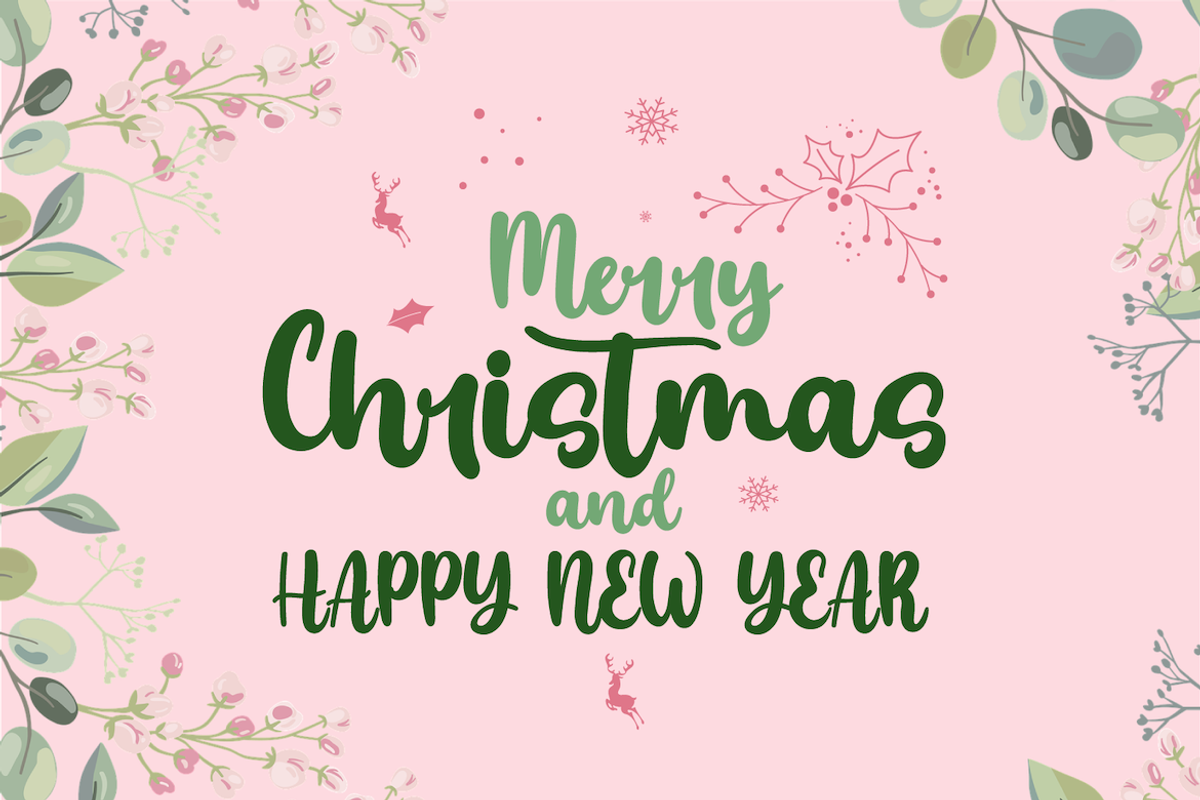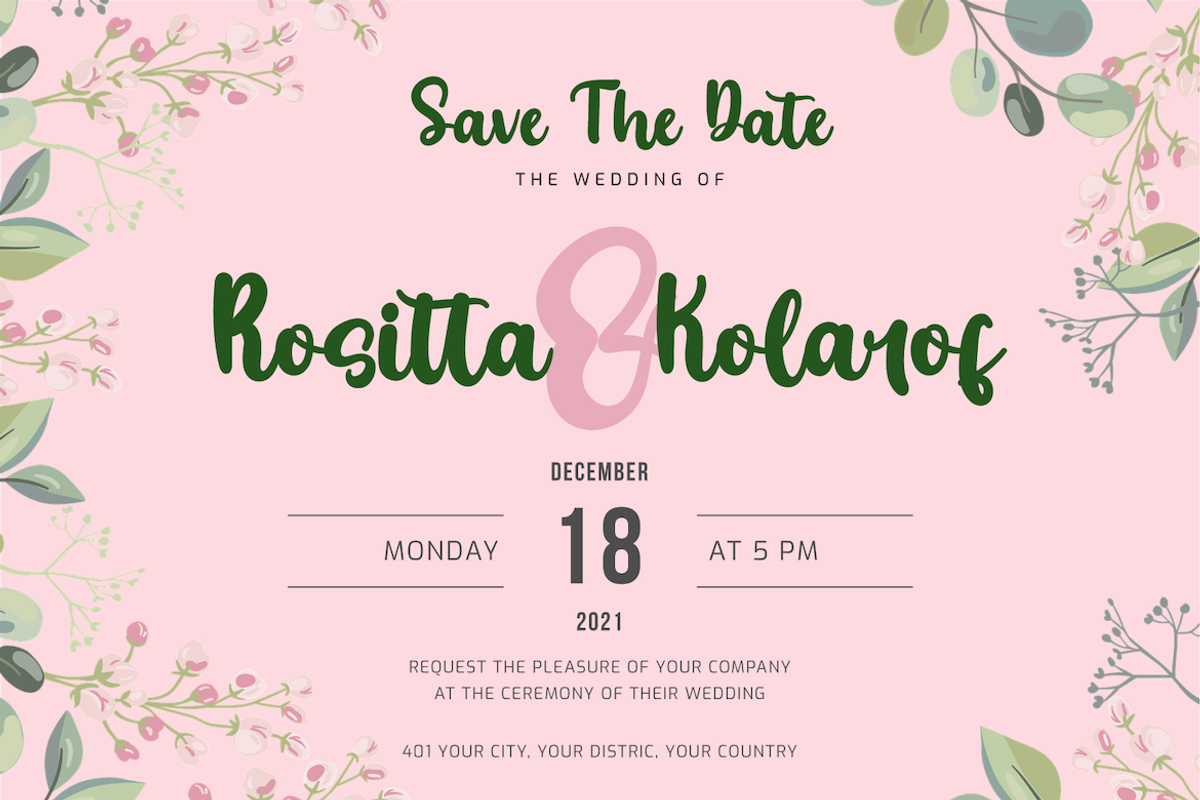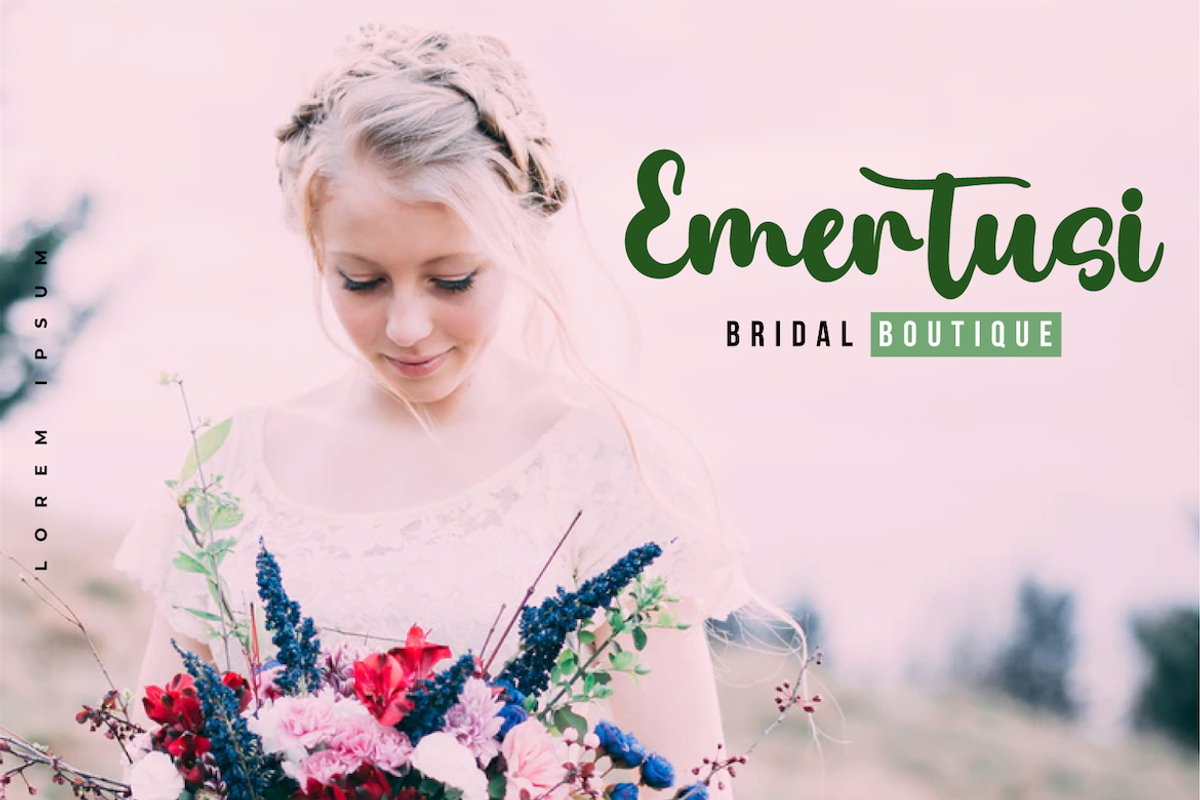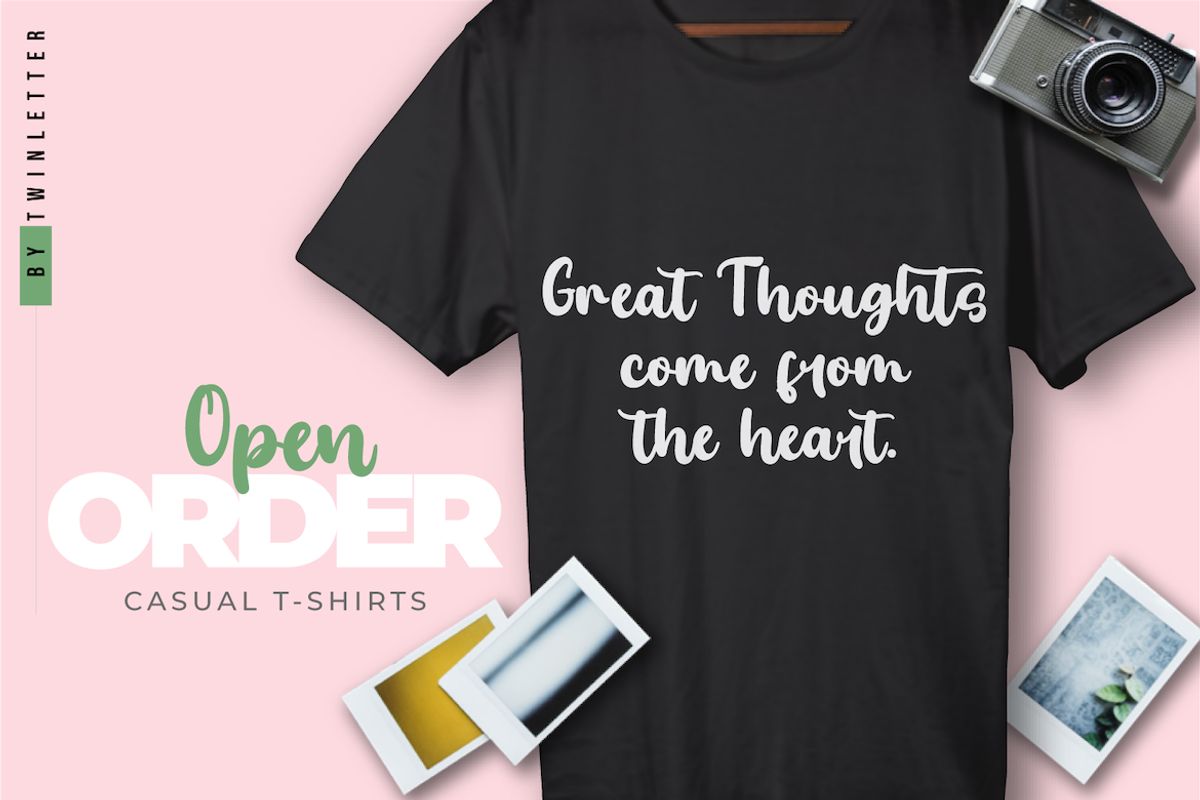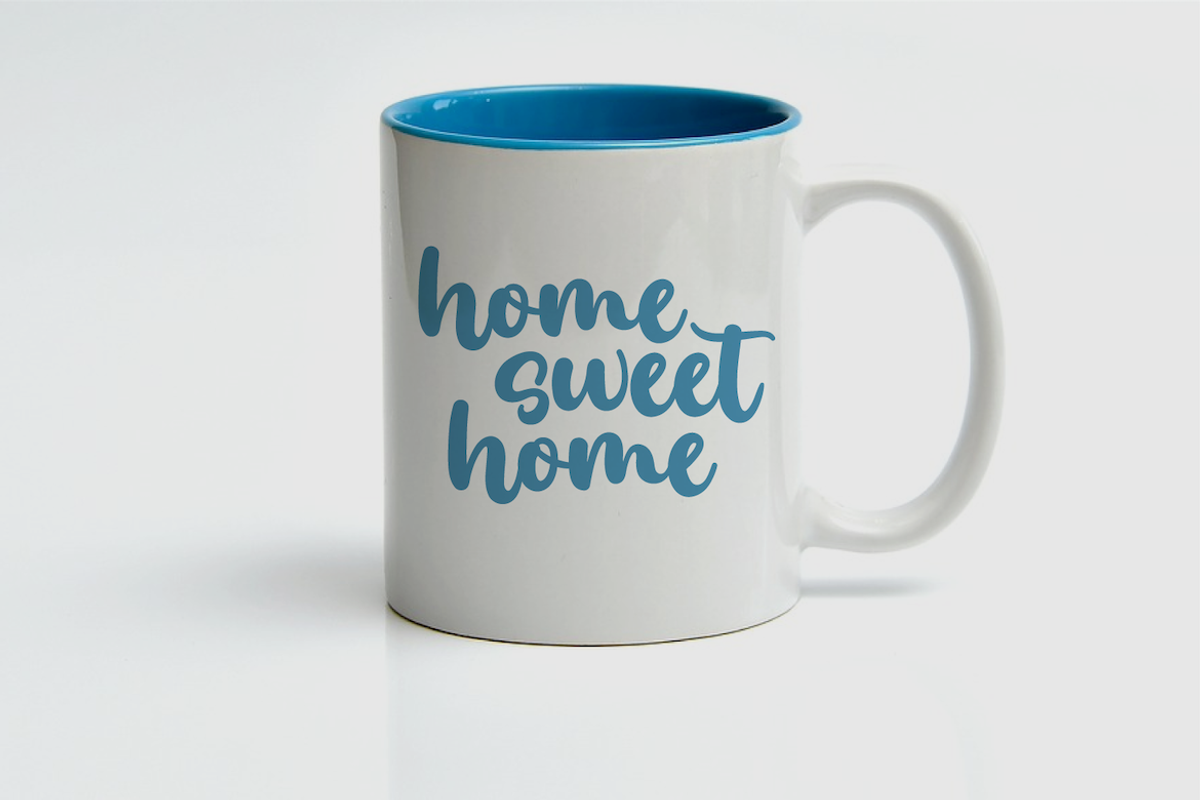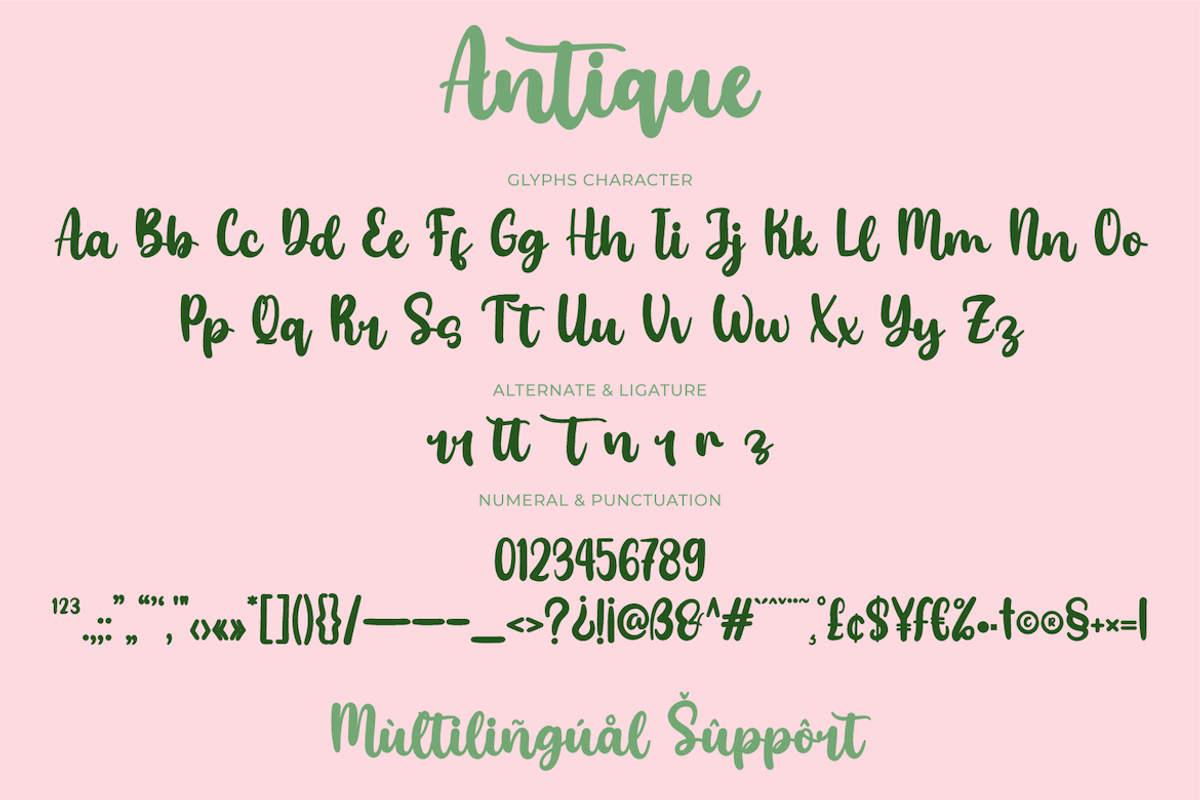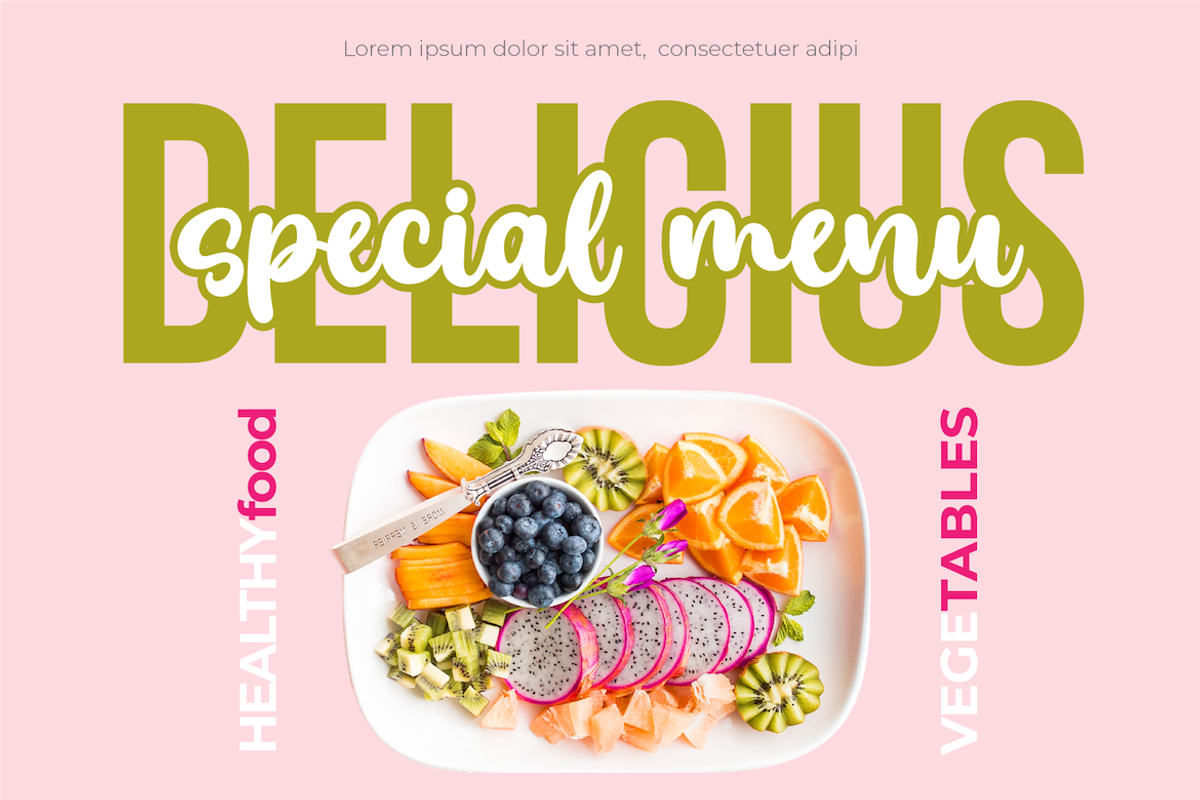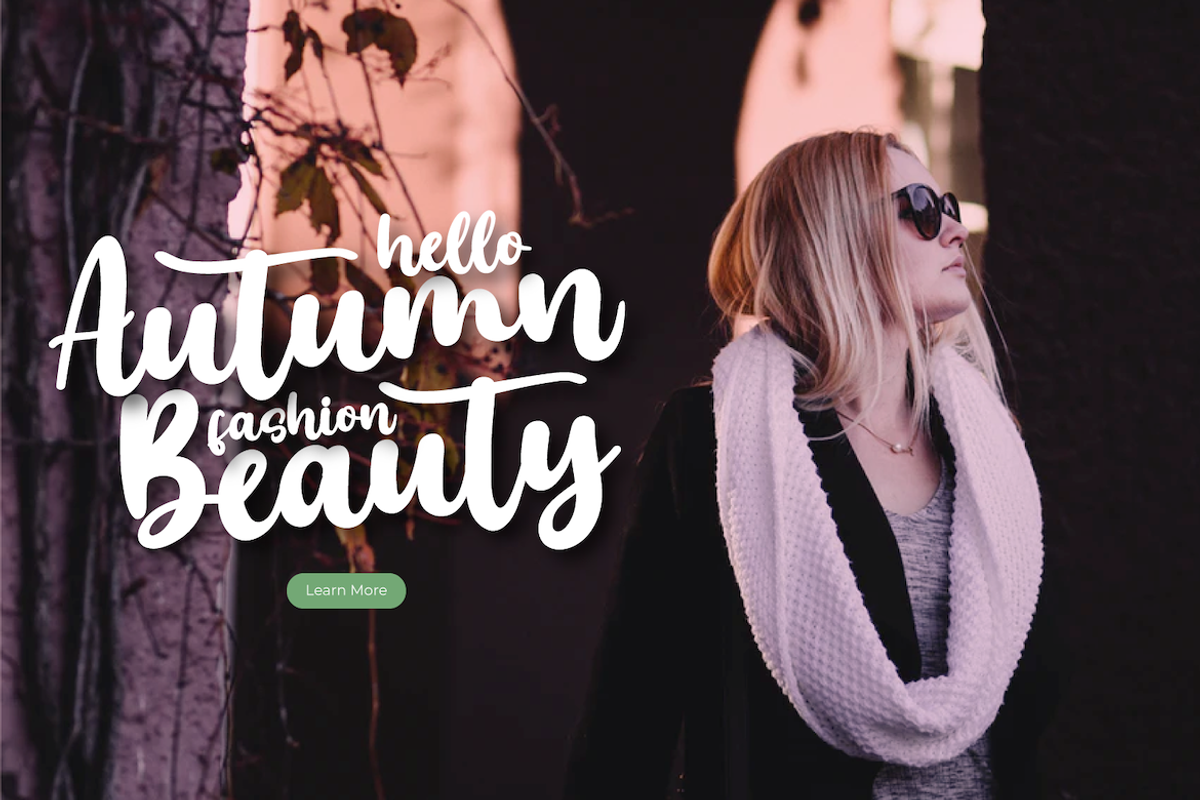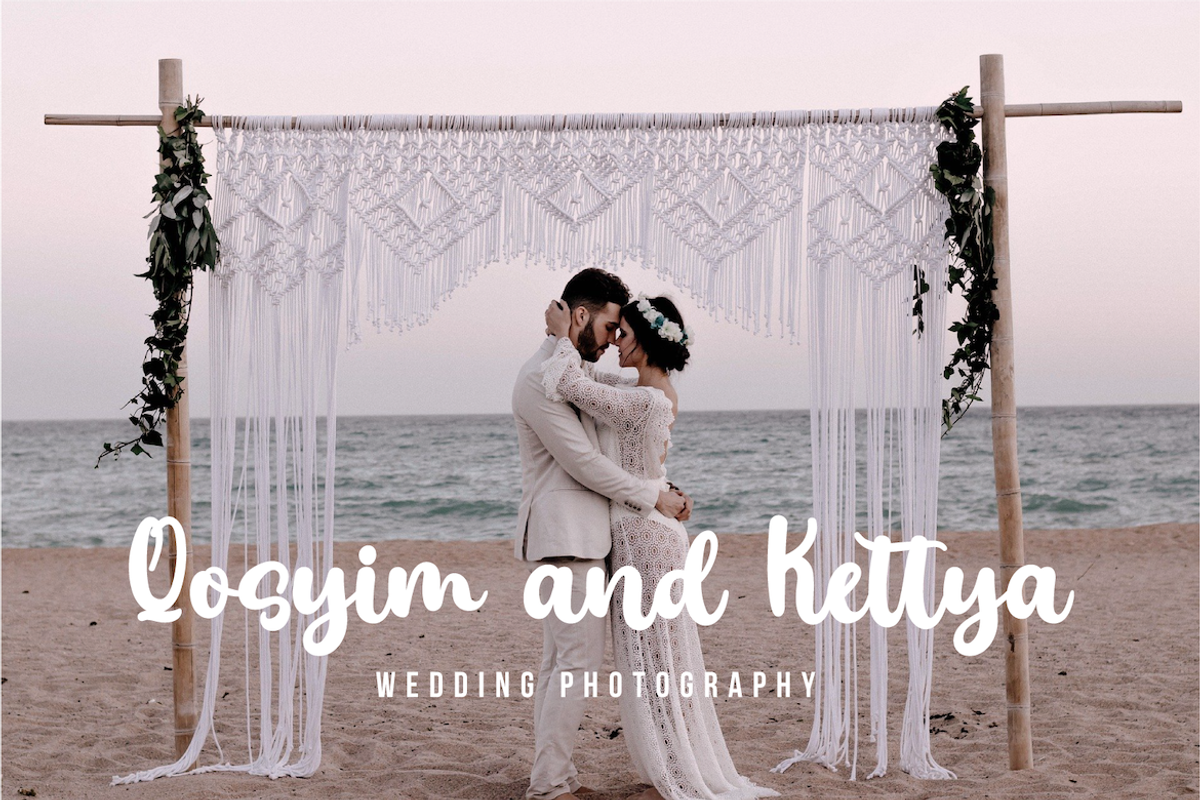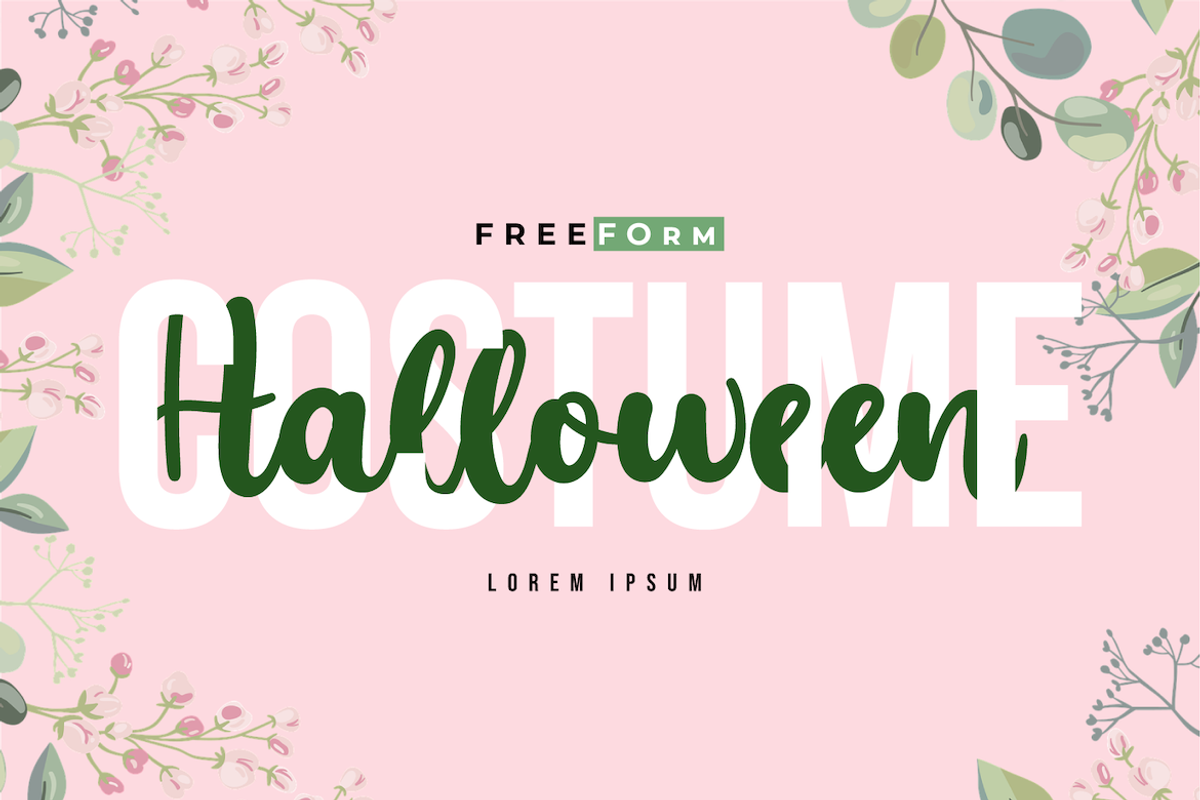
Antique
Antique is a handwritten script font with a pretty and cute feel but is still beautiful and elegant to use.
This font has its own charm for you to use as a title, write names, words, and sentences which of course look good and charming, and certainly this font is not only limited to that purpose but is also very special for every need of your project, be it a project. formal and non-formal, this font is still beautiful and elegant. Start creating incredible designs with this font!
This captivating font also offers harmoniously beautiful abstract typography for a wide variety of design projects, including digital natural handwriting for designs, design quotes, for social media business designs, advertisements, trademarks, food and beverage promotion banners, text, posters, a signature. , and all designs require handwriting or whatever design you want.